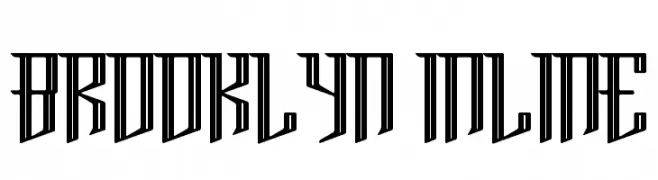
A bold, modern inline font with sharp angles and geometric structure.
A bold, inline font with a geometric and decorative style.
A bold, decorative font with a retro inline design.
A bold, inline font with strong contrast and modern appeal.